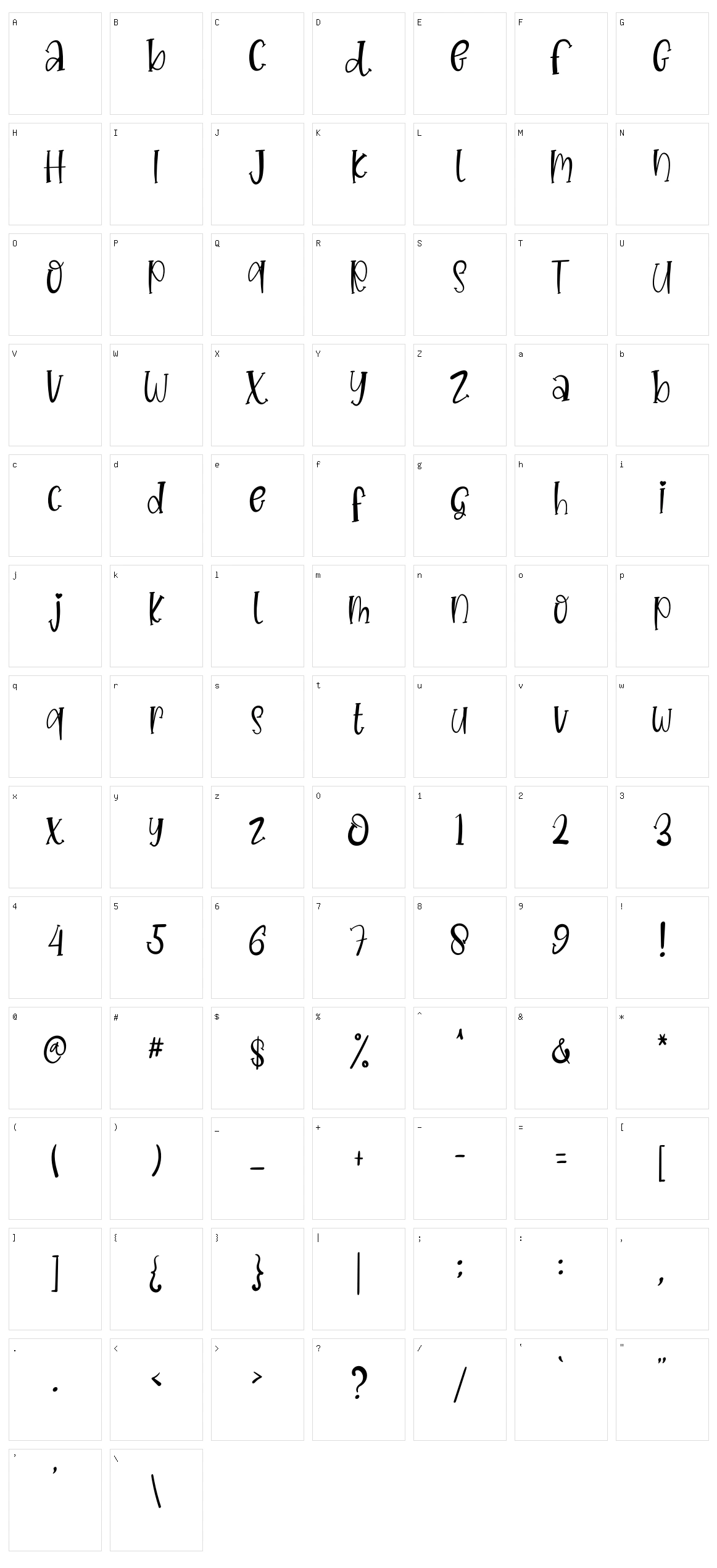
The free font Creative Vintage is carefully designed by Kateeng Ciu, showcasing a thoughtful balance of creativity and usability and falls under the Cartoon font style. When you download the ZIP file, it contains only 194.37 KB of font files, making it lightweight and quick to download. Please review the license details below to understand permitted usage and distribution rights. If license information is not available, we recommend using this font for personal projects only or contacting the author directly for commercial usage permissions.